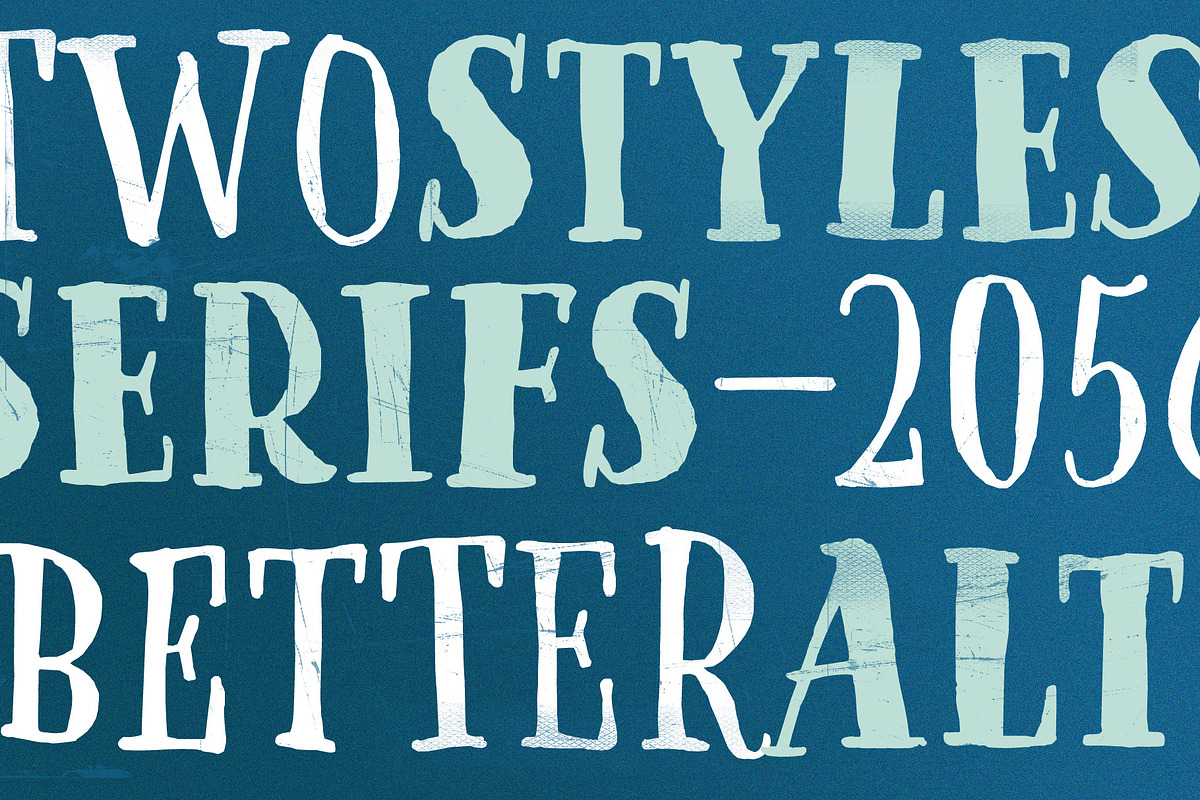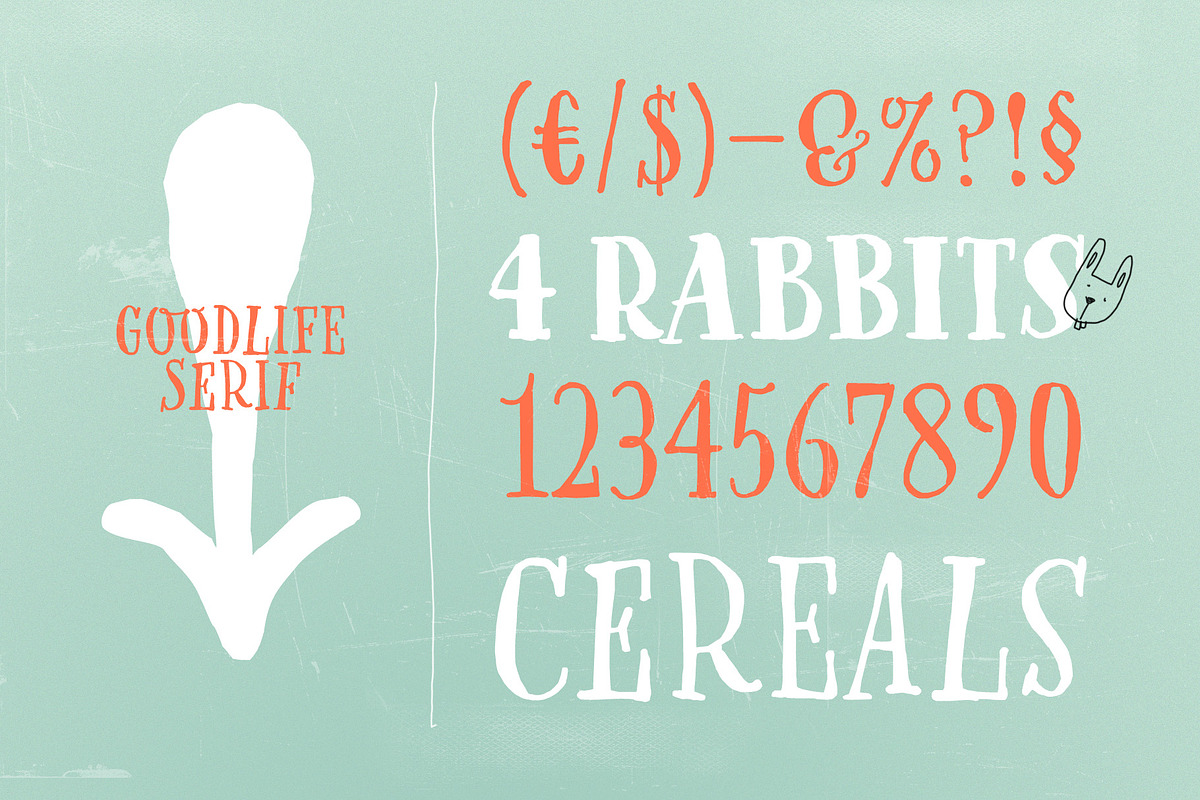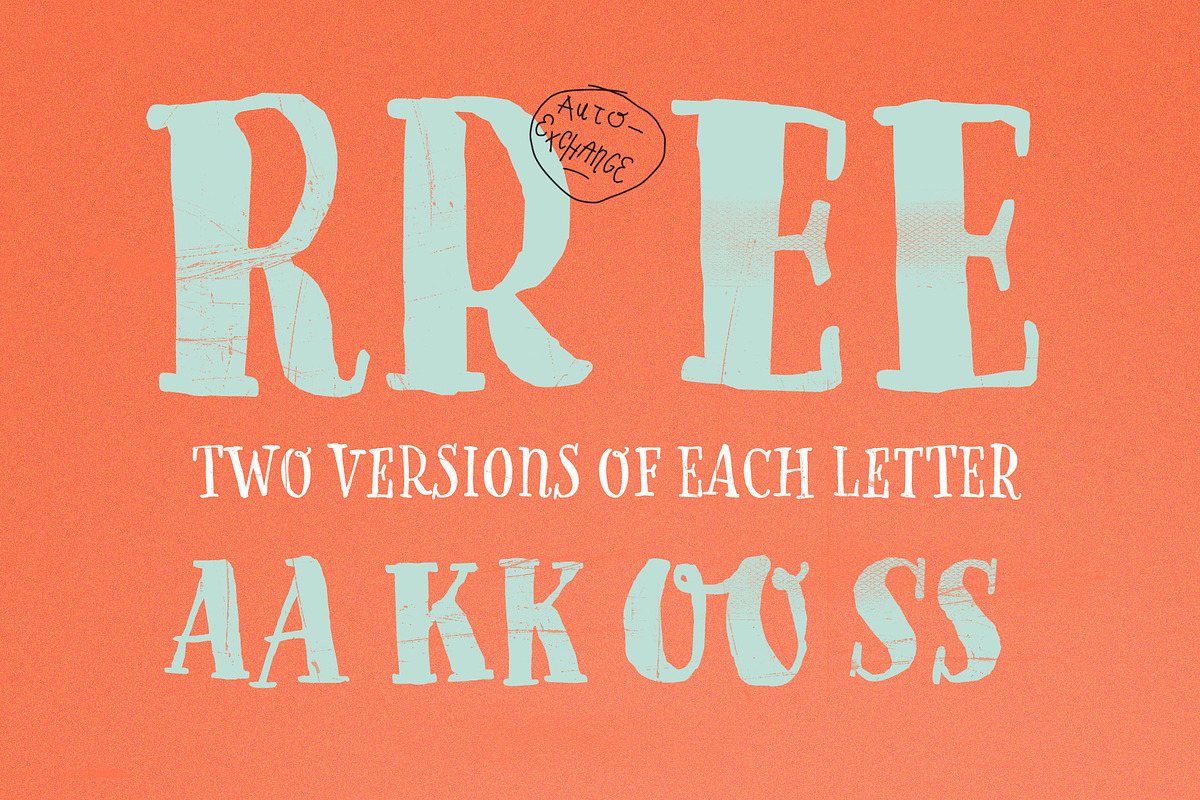
Goodlife Serif
With this set and a little bit of love and care it is possible to create beautiful “handmade” graphics. Equipped with automatically exchanging alternates, ligatures, end forms, swash letters and some other features, Goodlife Serif is optimized to feel not just like a font but like true handletterings.
Goodlife Serif by HvD Fonts fits naturally into Branding, posters, packaging, typography.